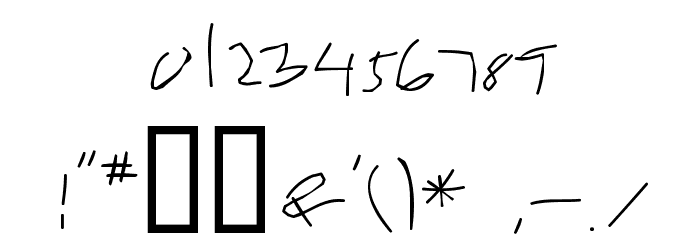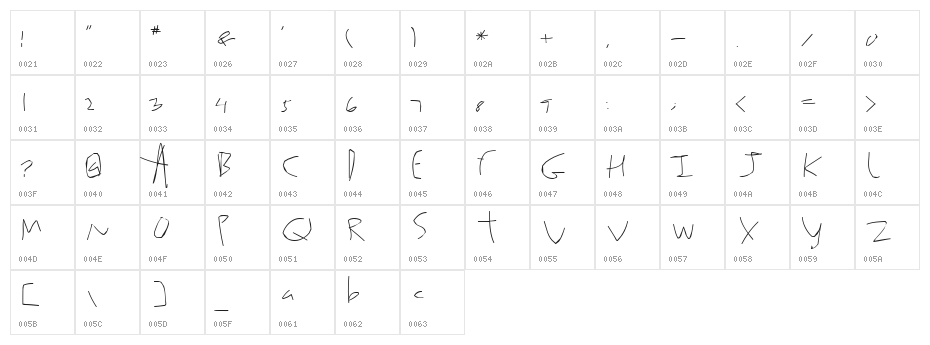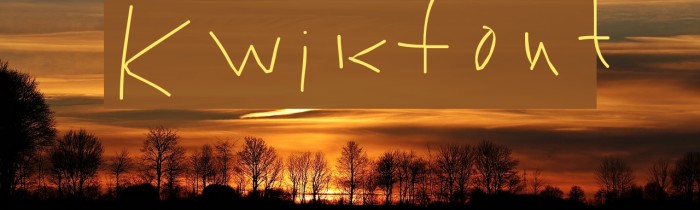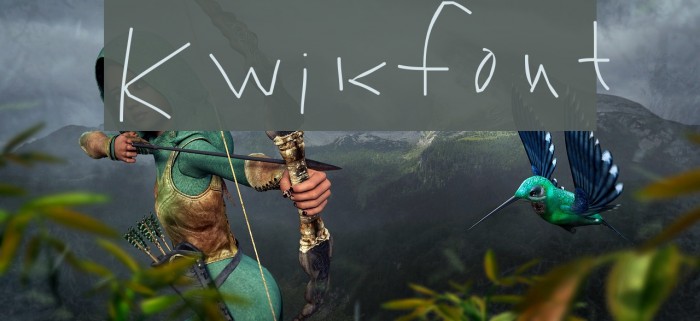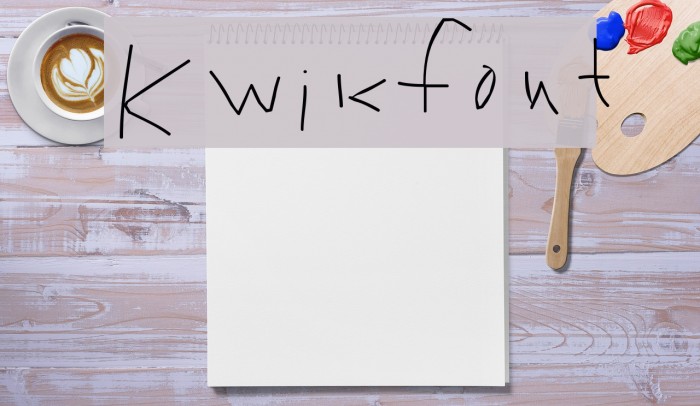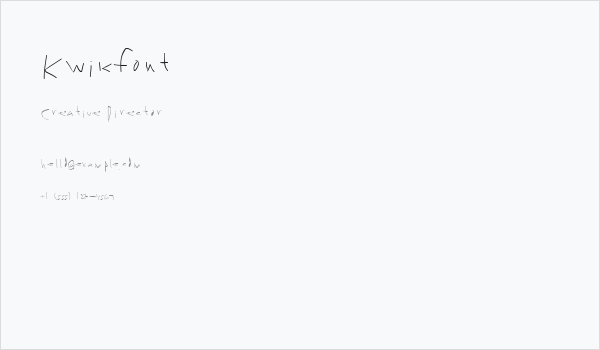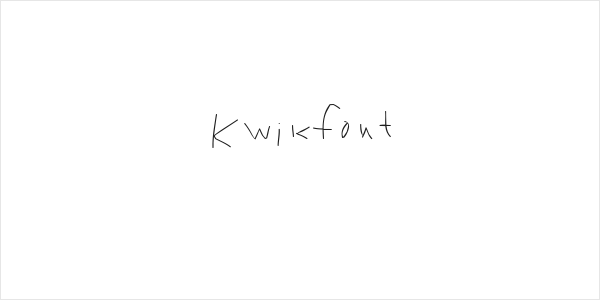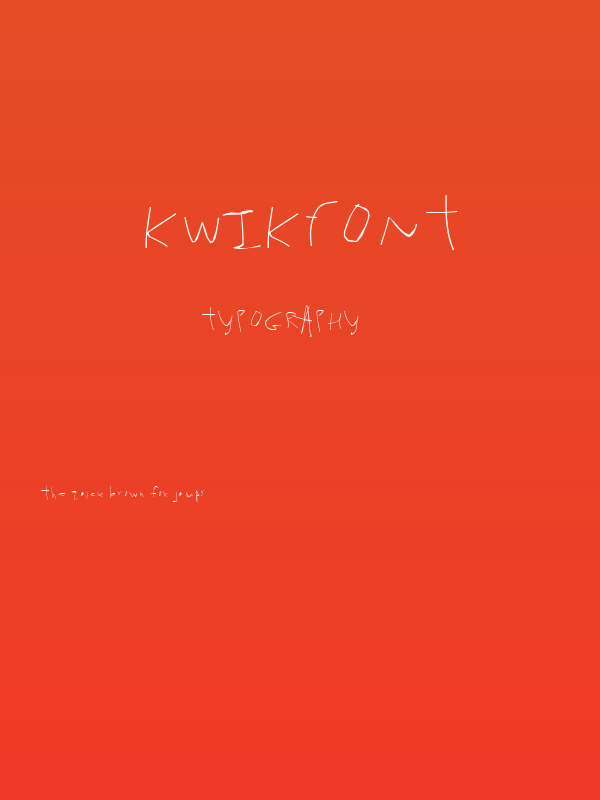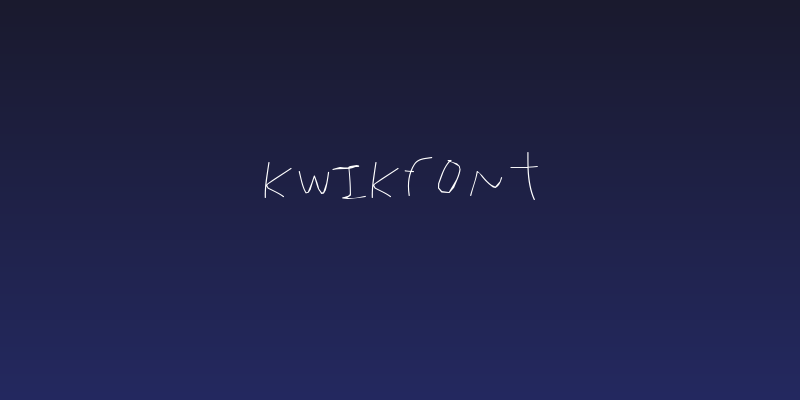
Kwikfont Font
Kwikfont Description
This font features a casual, handwritten style that exudes a sense of spontaneity and informality. The letters are unevenly spaced and vary in size, giving it a playful and dynamic appearance. The strokes are thin and slightly irregular, adding to the hand-drawn feel. The uppercase letters are tall and narrow, while the lowercase letters maintain a consistent flow with a slightly more rounded form. Numbers and special characters follow the same casual aesthetic, making the font suitable for projects that require a personal touch.
| Use Case | Informal text, Creative projects |
| Proposed Projects | Ideal for personal notes, informal invitations, children's book illustrations, and creative projects that require a touch of personality. |